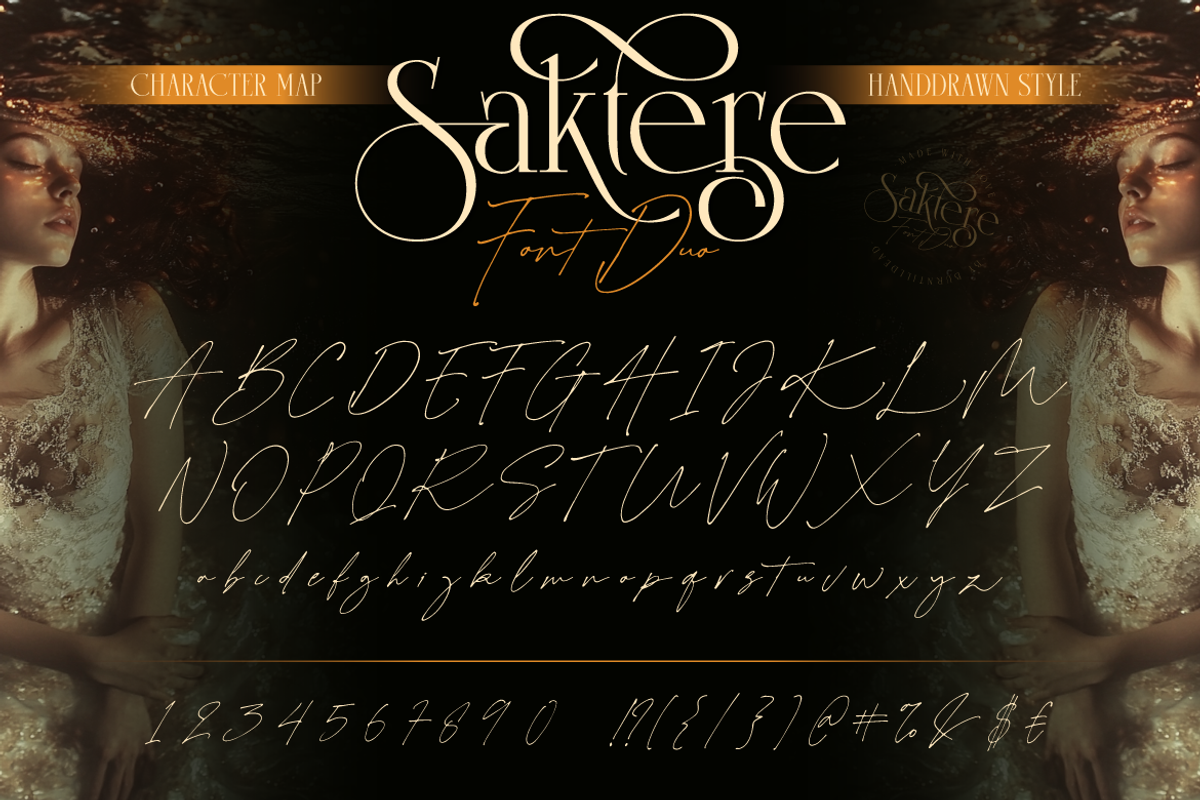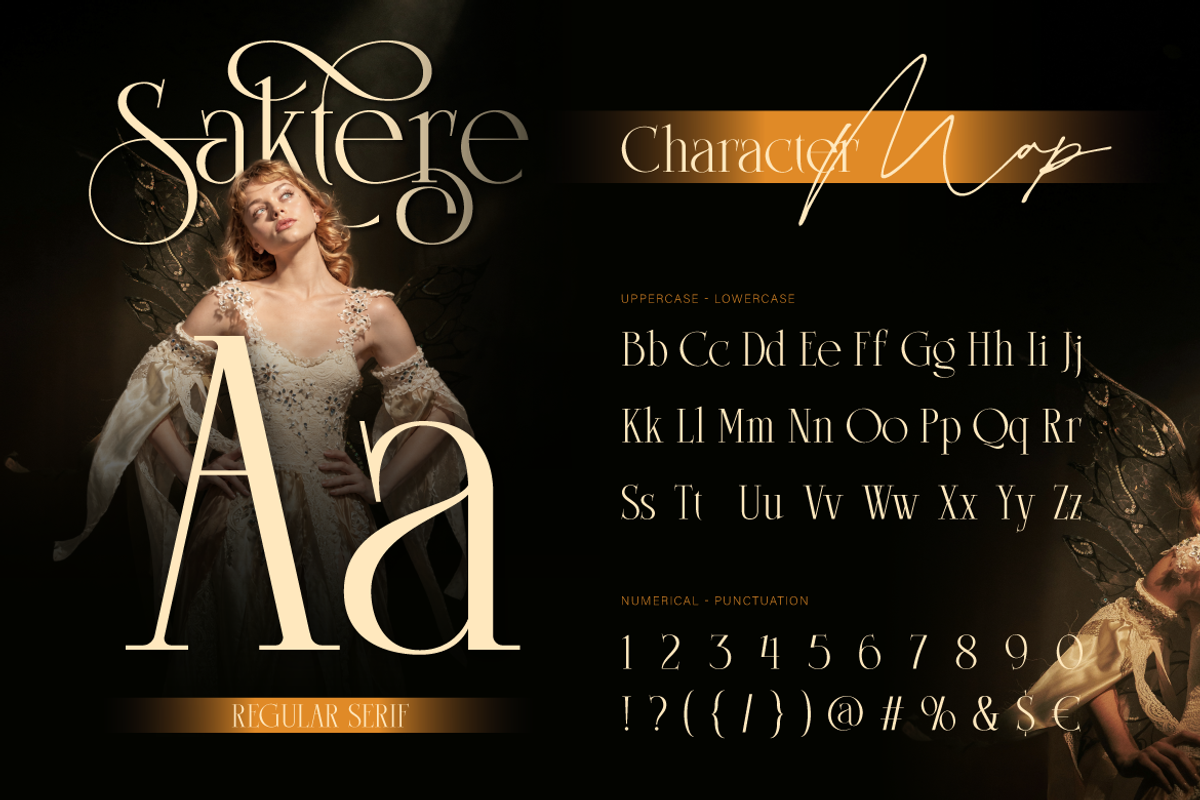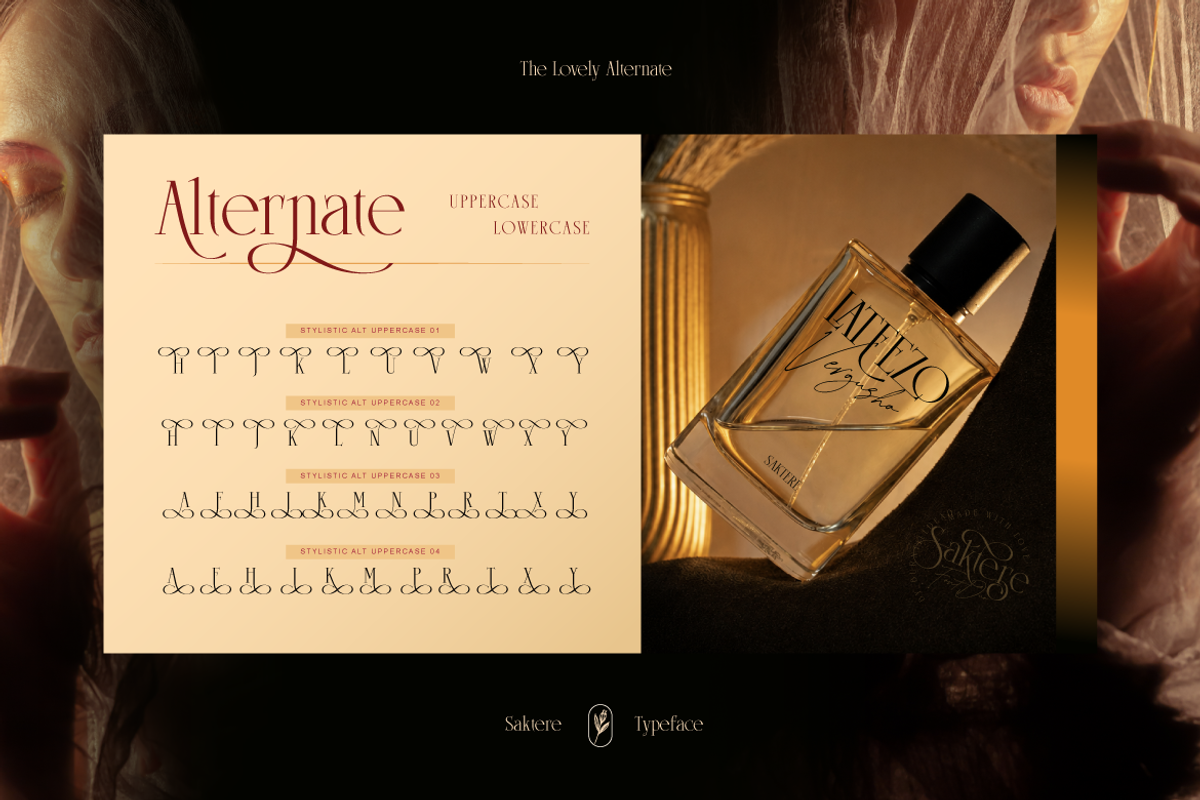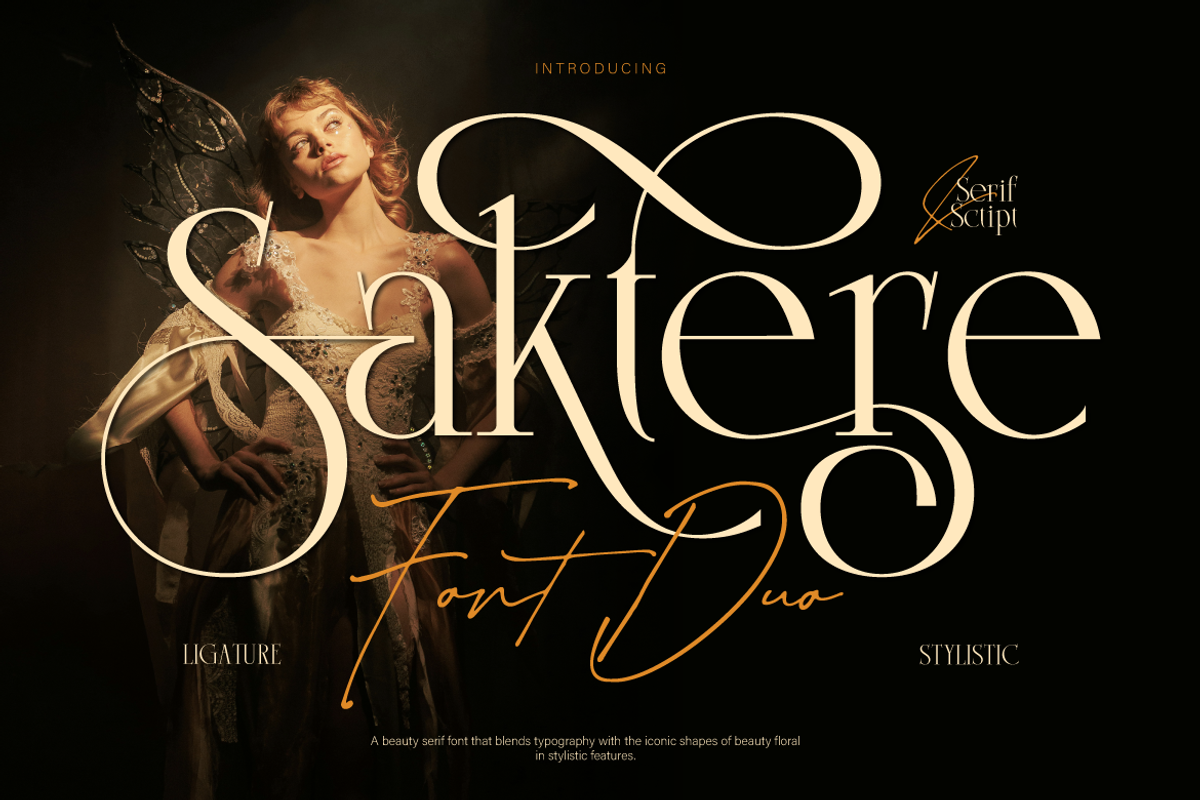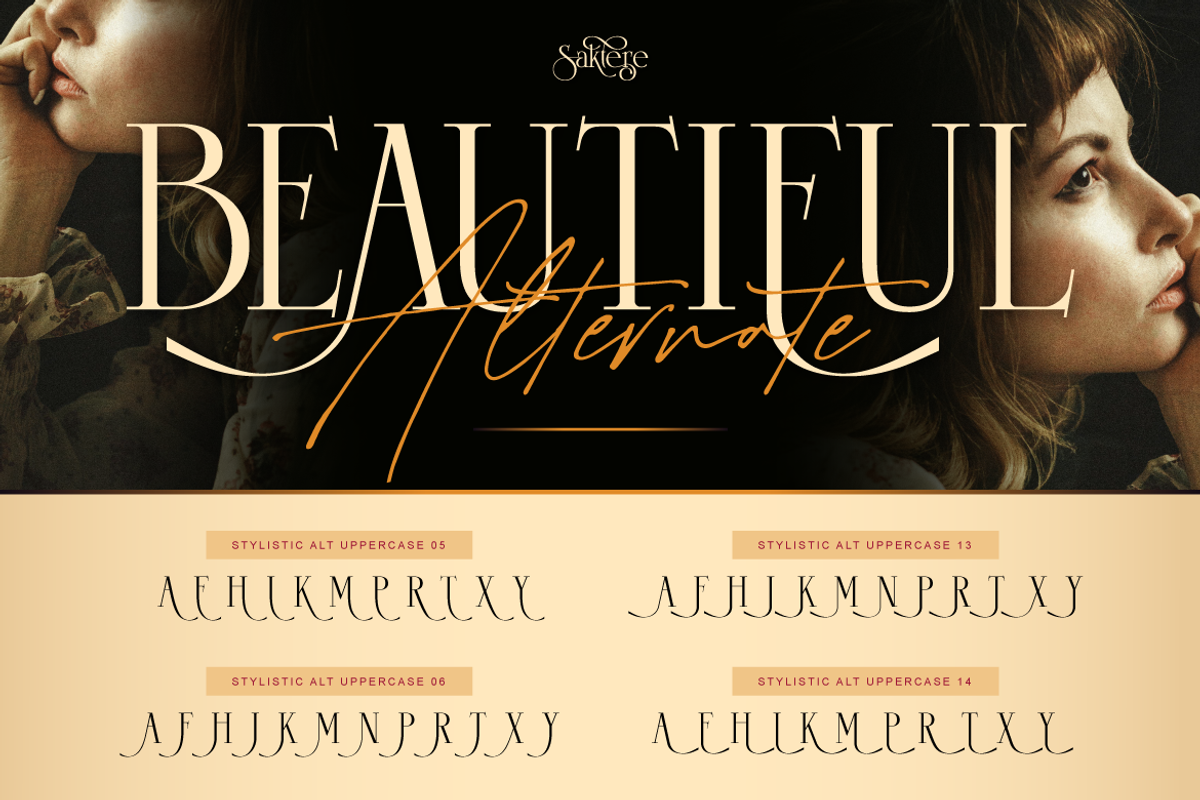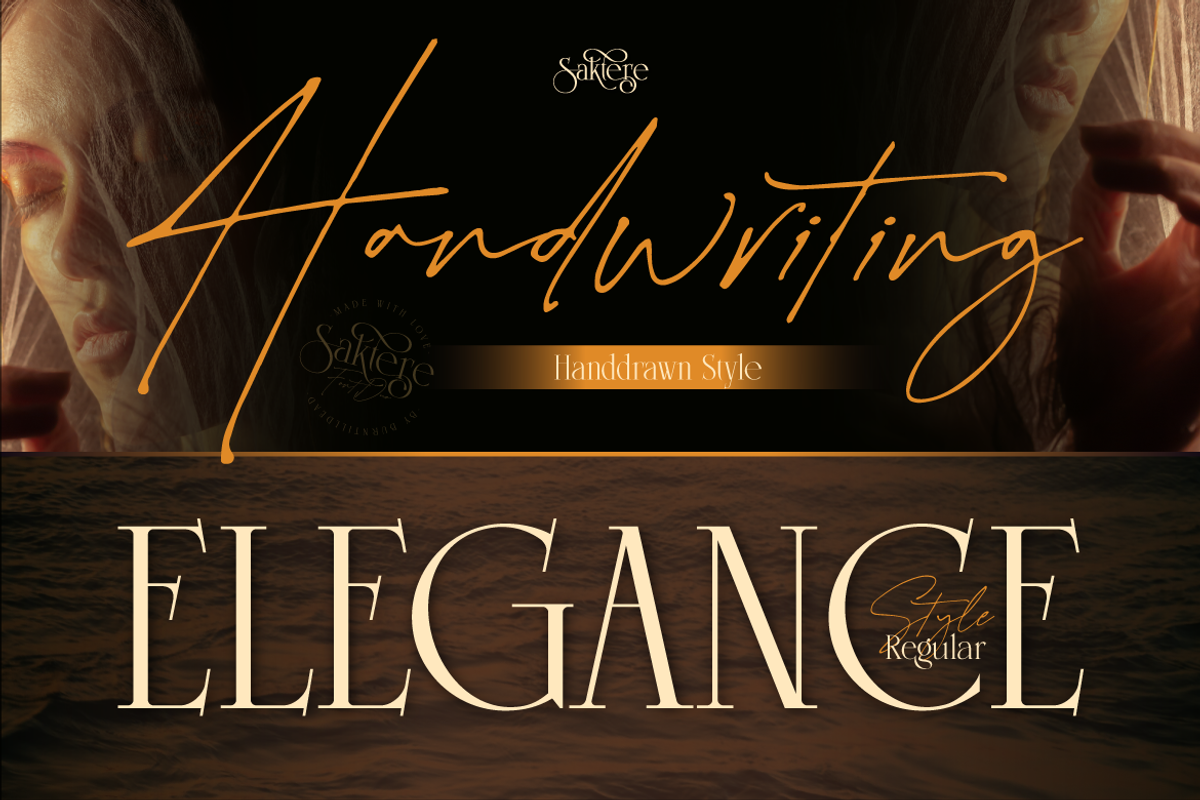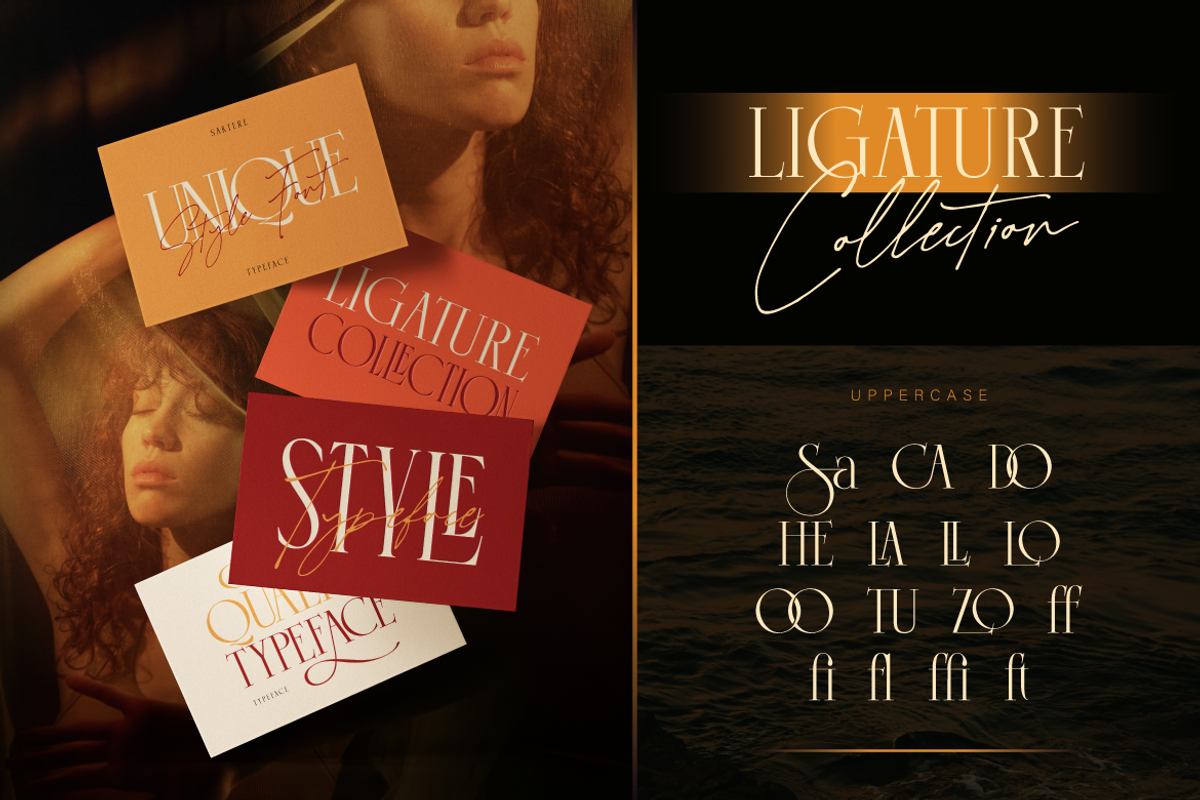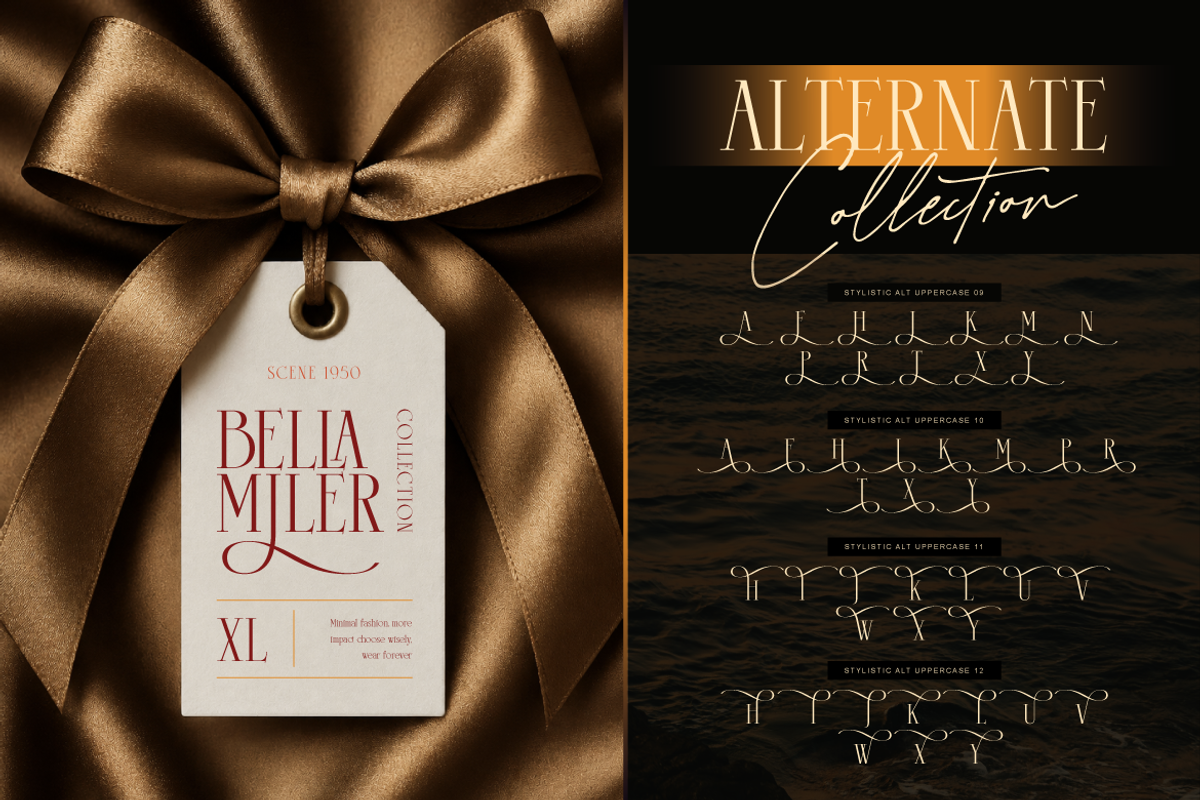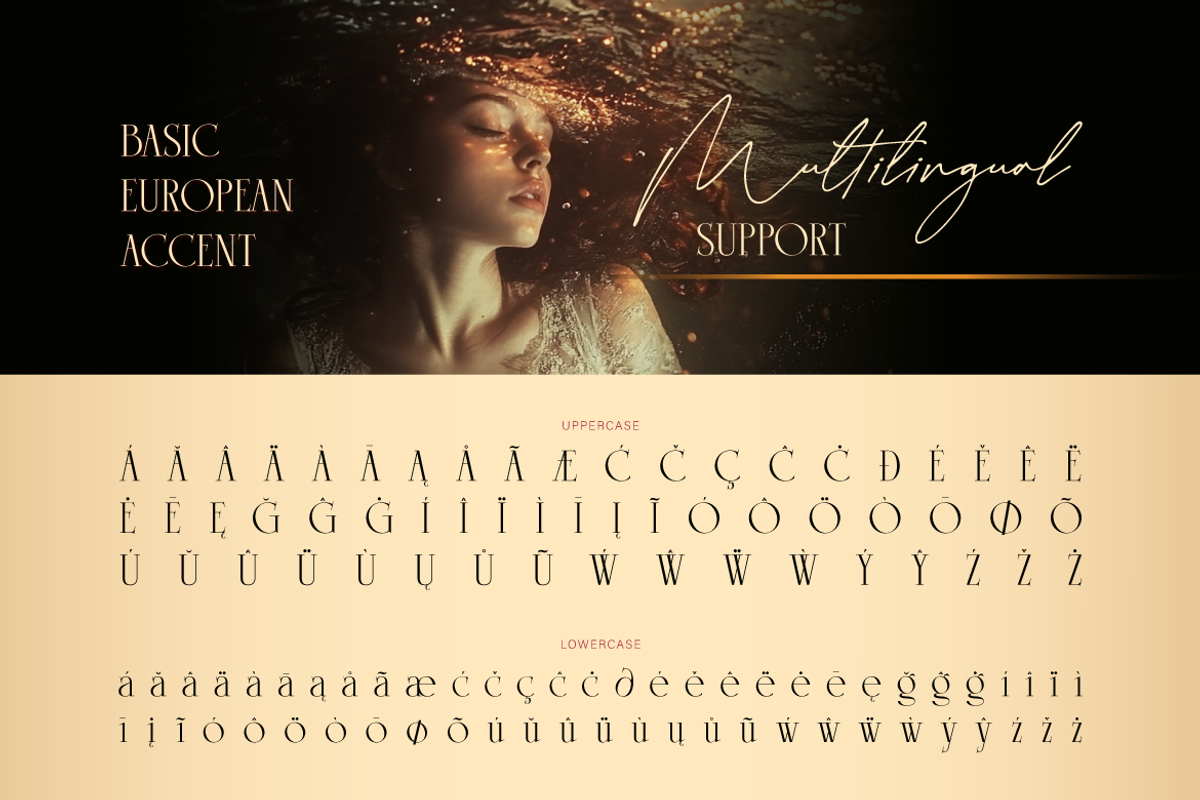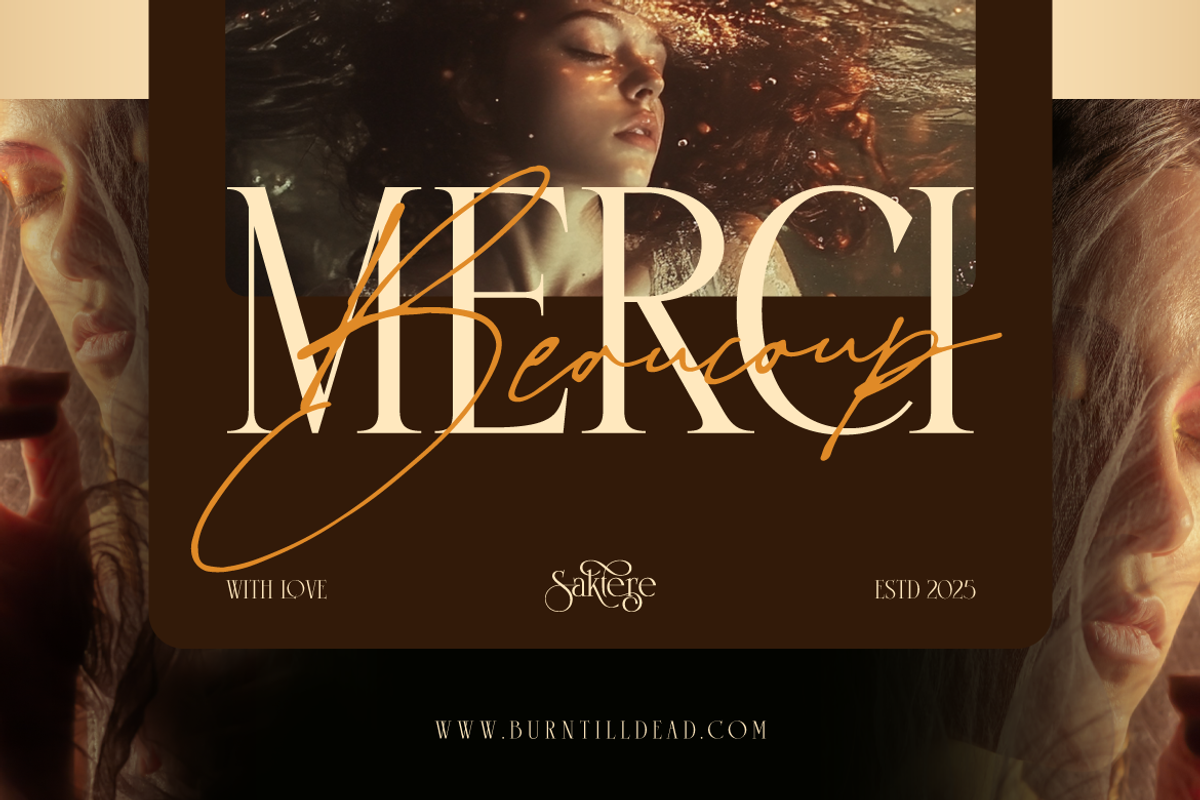
Saktere - Elegant Serif and Script
Unveil timeless elegance with Saktere, an exquisite font duo crafted by Burntilldead Studio. Combining a high-contrast beauty serif with an expressive, hand-drawn signature script, Saktere offers a perfectly balanced typographic pair designed for high-end creative projects.
The serif typeface blends classic letterforms with iconic floral-inspired stylistic swashes, dramatic loops, and unique ligatures. Paired with its flowing, organic script companion, Saktere gives you complete freedom to create romantic, editorial-ready layouts, luxury brand identities, and stunning visual hierarchies in minutes.
Luxury Brand Identity & Logo Design
Bridal Makeup, Wedding Stationery & Invitations
Fashion Magazine Layouts & Editorial Covers
Perfume Bottles, Cosmetics & Product Packaging
Romantic Quotes, Social Media & Moodboards
A – Z set (Uppercase & Lowercase)
Number
Saktere characters Map